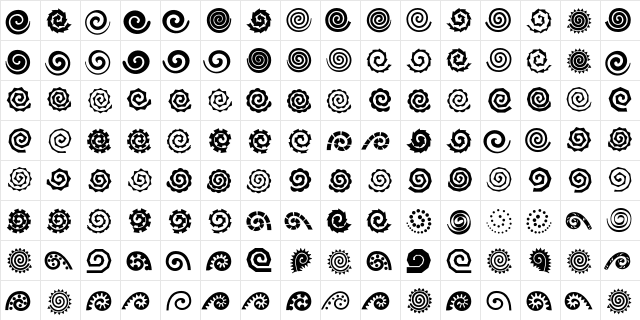
Altemus SpiralsBold Font Preview
Altemus SpiralsBold
Design Context for Altemus Typeface
Altemus is a composed and adaptable typeface that performs quietly and consistently across a wide range of design contexts. Its bold stroke weight gives it real presence on the page.